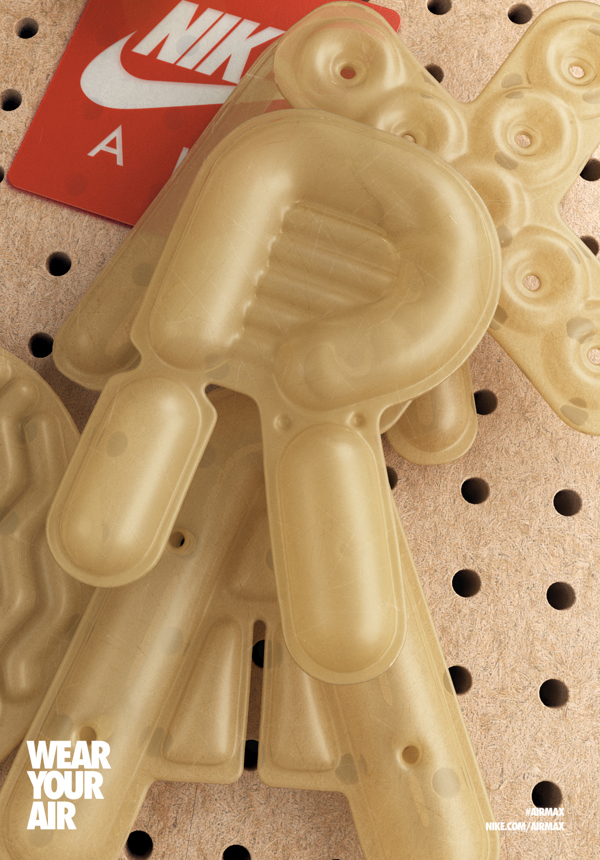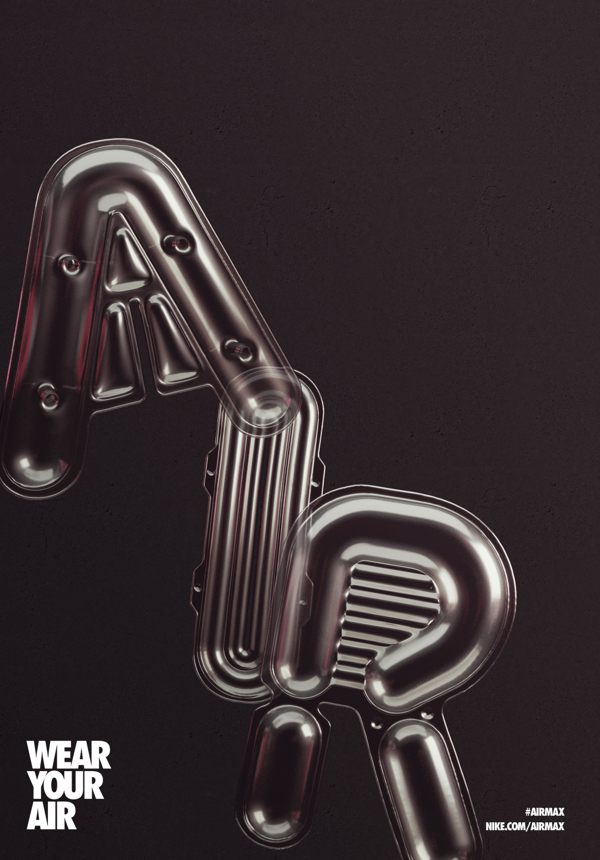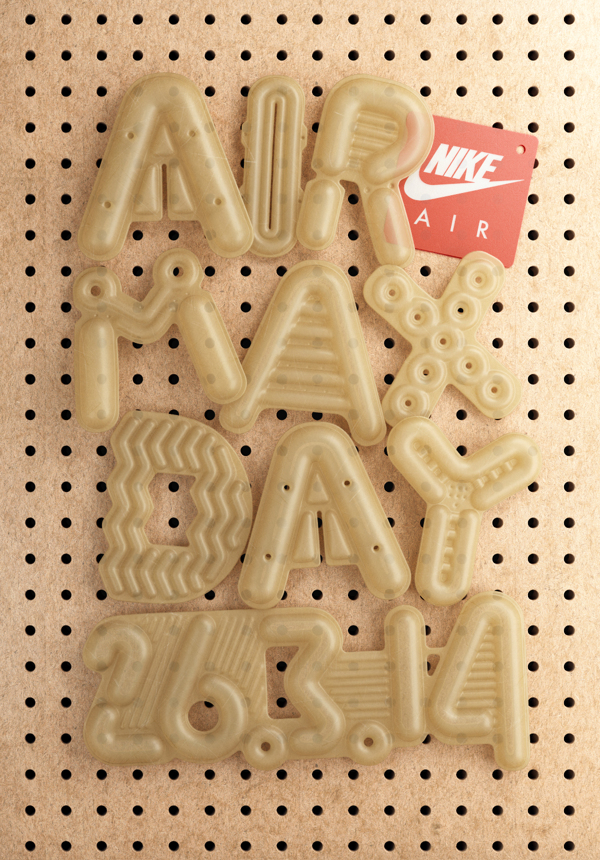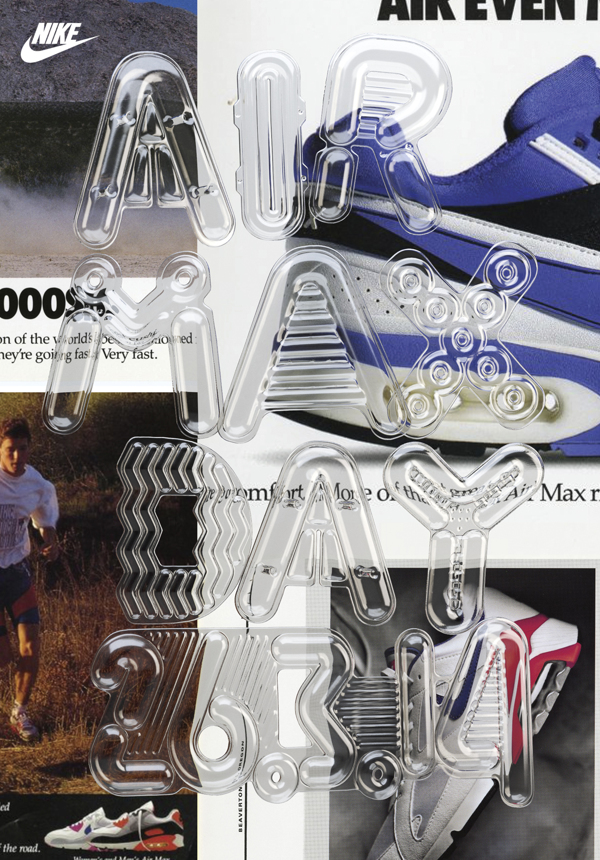
Air Max Day
The famous illustrator & designer Chris LaBrooy designed with his team at Nike some air bag inspired 3D type to celebrate AIR MAX DAY. The transparent bubbles were then placed over iconic nike air max ads past and present creating amazing fluffy textures. The result is stunning and totally convincing!